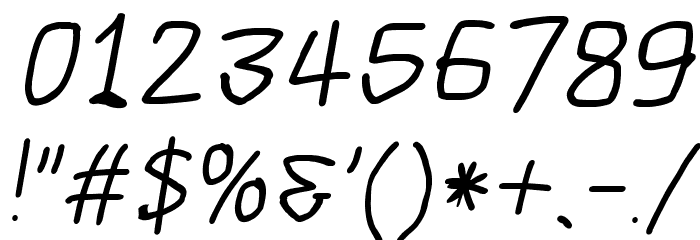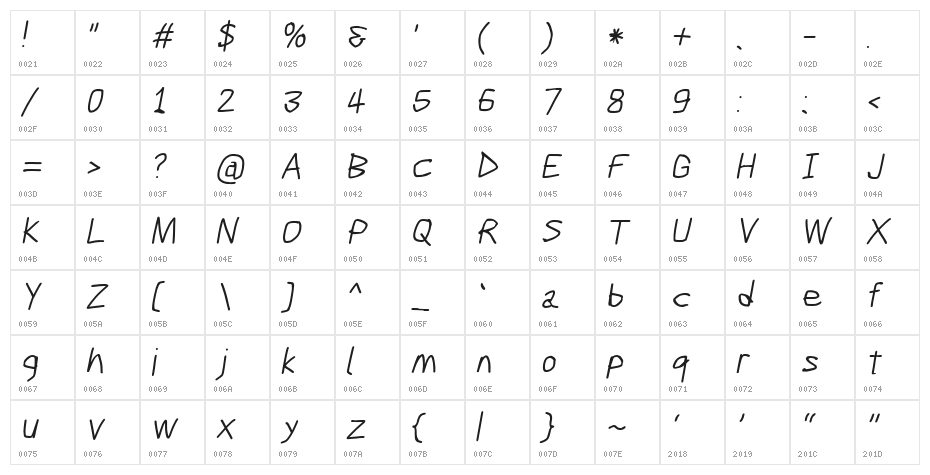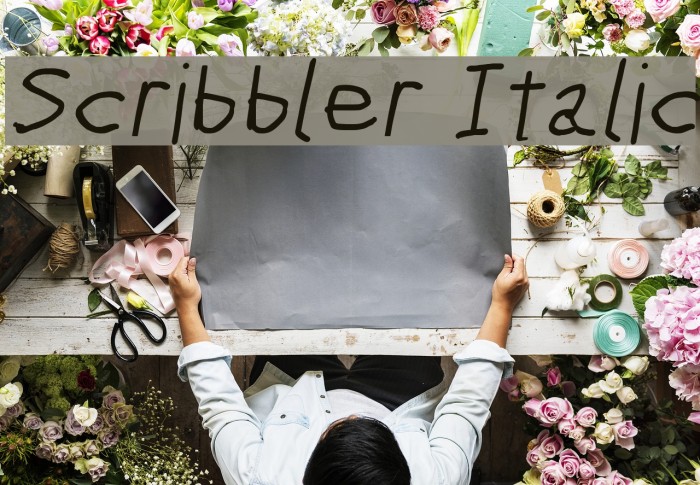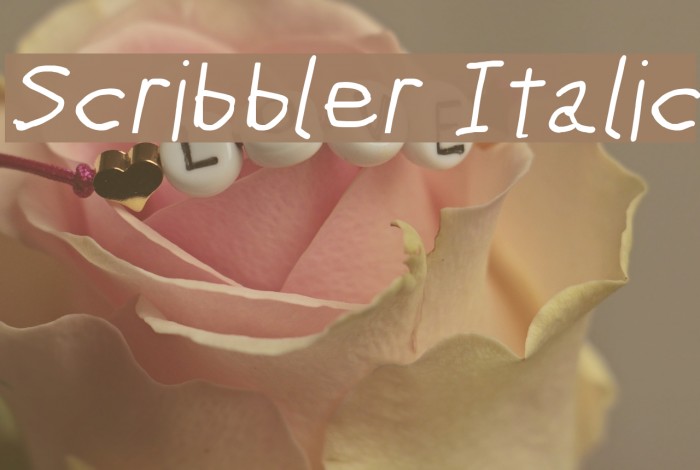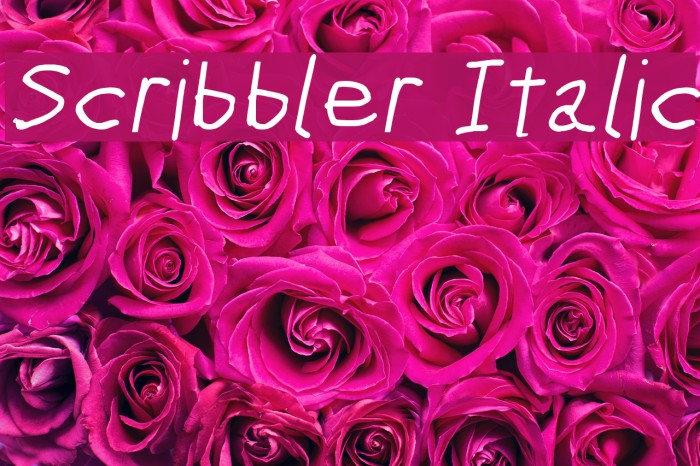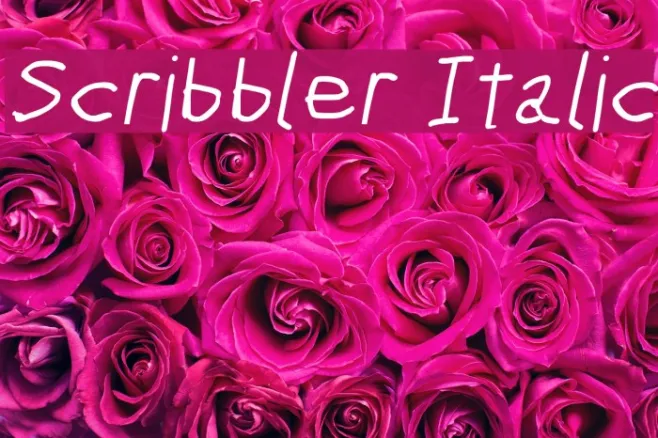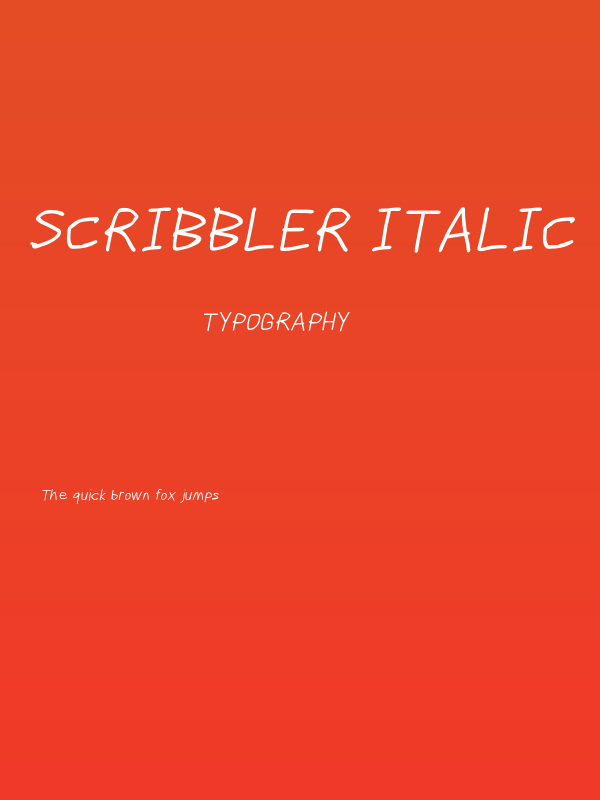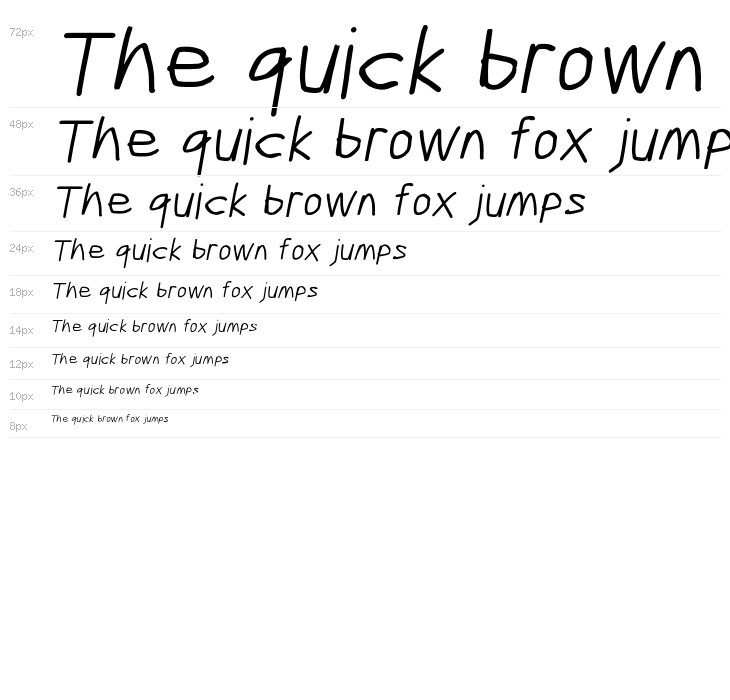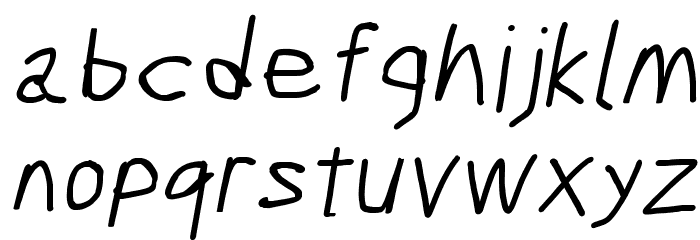
Scribbler Italic Font
Scribbler Italic Description
This font features a playful and informal handwritten style, characterized by its slightly slanted, italicized appearance. The letters are crafted with a casual flair, giving an impression of spontaneity and creativity. The strokes are smooth and consistent, with a medium thickness that maintains readability while adding a touch of personality. The uppercase and lowercase letters are well-proportioned, and the numerals are clear and distinct. Special characters are included, maintaining the same whimsical style, making this font versatile for various creative projects.